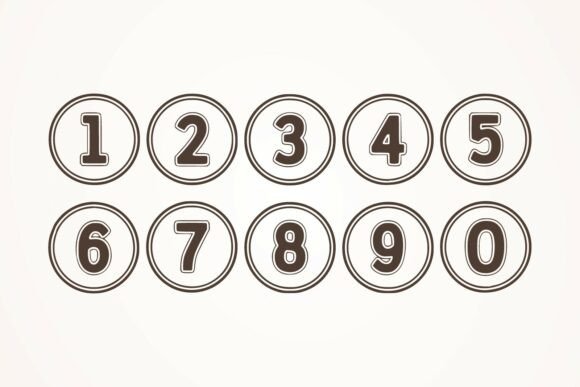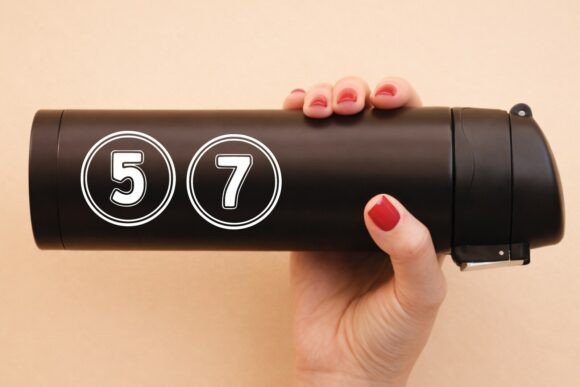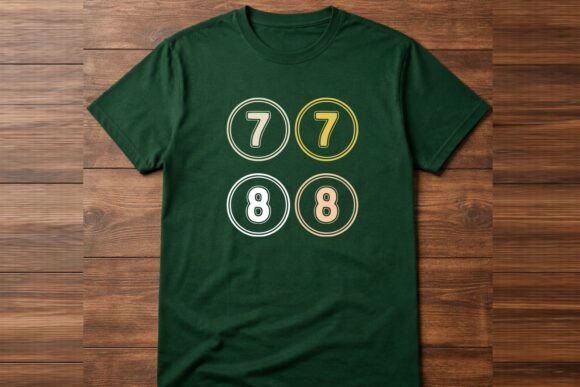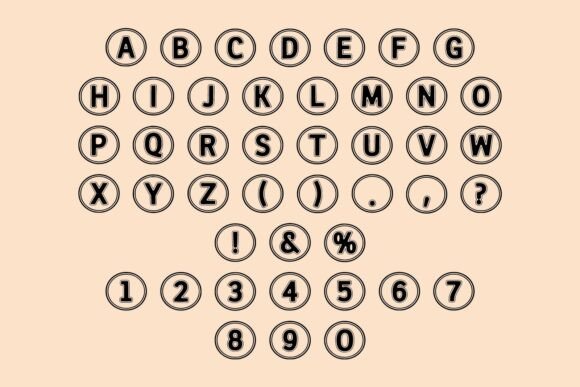
Ball Banner Font – Free Download
Introduction to Ball Banner Font
Ball Banner is a playful retro display font featuring bold letters inside stylish circular frames.
Inspired by vintage badges and classic signage, this font brings a fun, colorful, and eye-catching look to your creative projects Perfect for banners, posters, logos, kids designs, branding, packaging, stickers, and social media graphics.